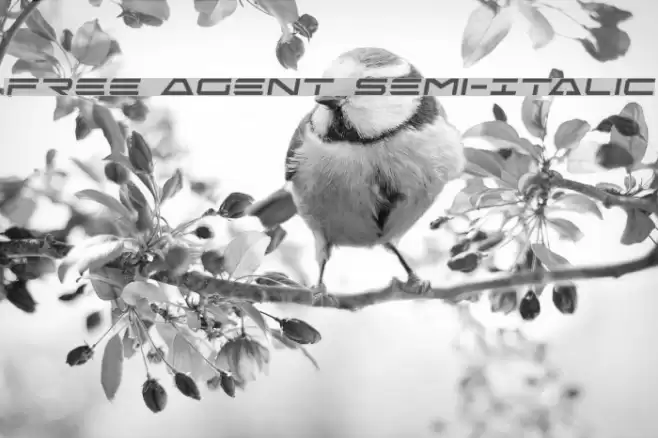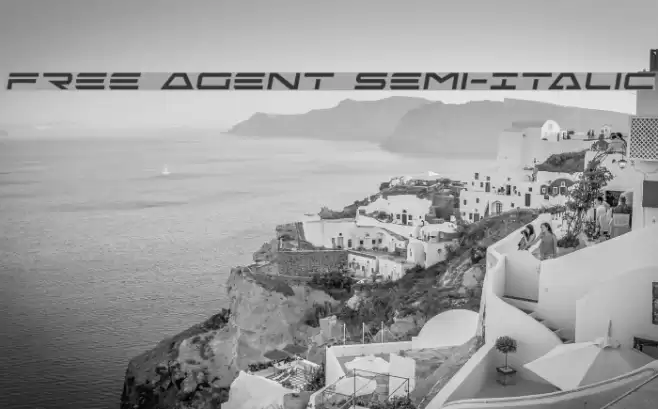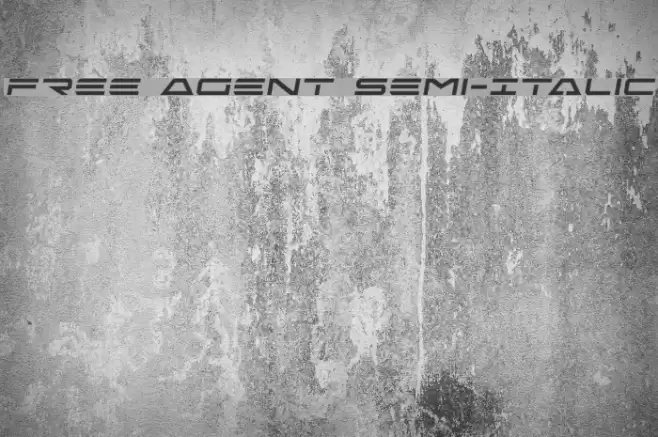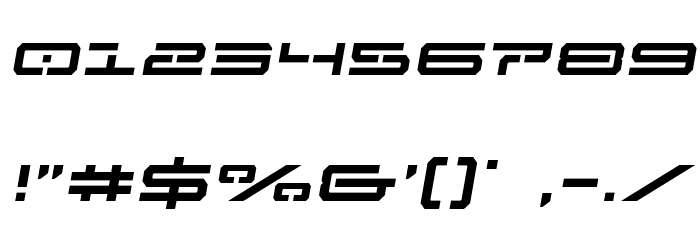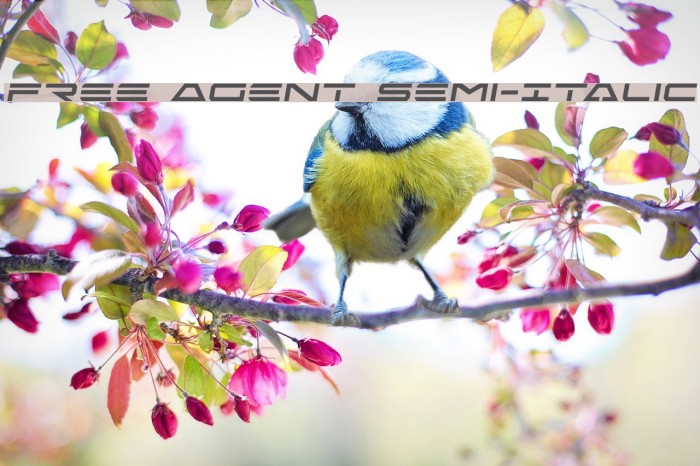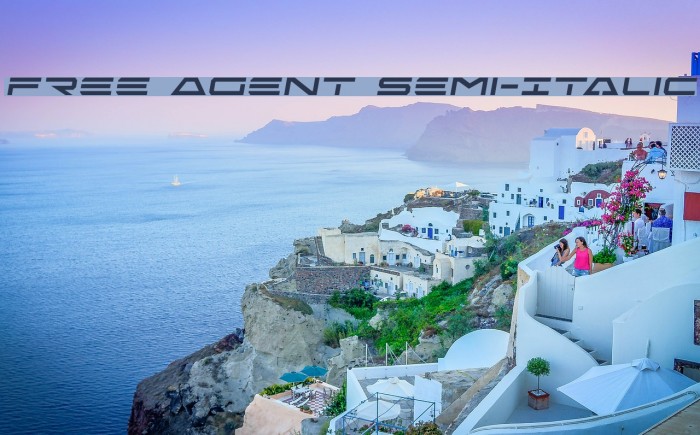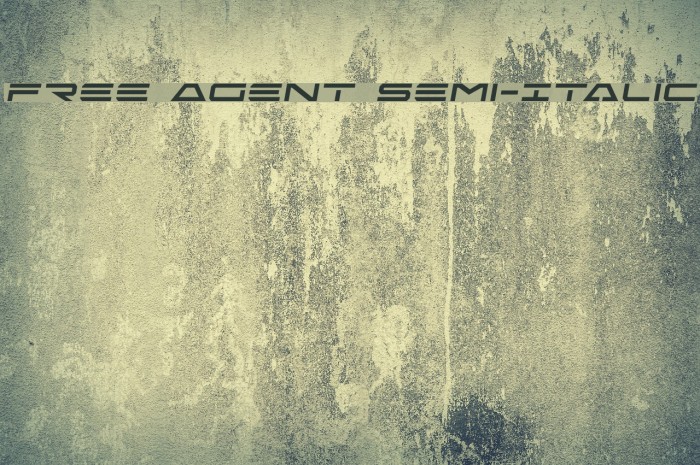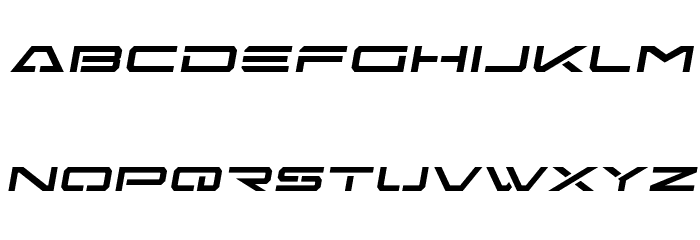
Free Agent Semi-Italic Font
Free Agent Semi-Italic Description
This font exhibits a sleek, futuristic design with angular, geometric shapes that give it a dynamic and modern appearance. The characters are slightly slanted, enhancing the sense of motion and speed. The uppercase and lowercase letters maintain a consistent style, with sharp edges and a uniform stroke width. The numerals and special characters are designed to match the overall aesthetic, making the font suitable for a variety of digital and print applications. Its unique style is ideal for projects that require a contemporary and edgy look.
A sleek, futuristic font with angular, slanted characters from Uncategorized fonts.
- Proposed Projects: Ideal for technology branding, sports team logos, video game titles, and sci-fi themed designs.